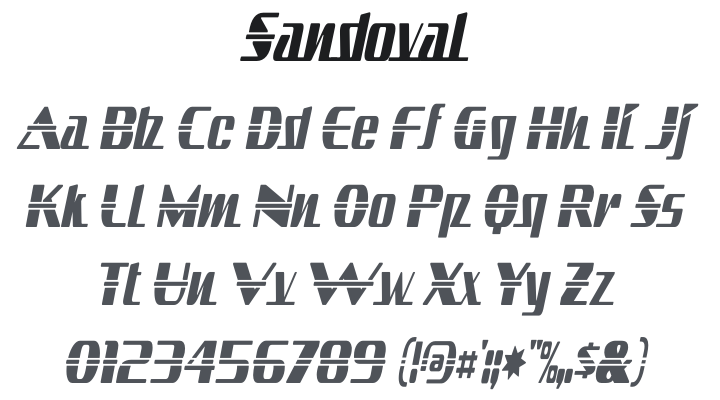
Sandoval Font Family
About Sandoval
Sandoval is a bold, slanted commercial/industrial headline typeface with a powerful automotive energy — its sharp, forward-leaning letterforms feel self-propelled, like they're racing off the page. A Speed variant adds extra slant for even more momentum. Perfect for automotive branding, motorsport graphics, action game titles, industrial packaging, and any headline that needs to hit hard with unstoppable forward-moving confidence.